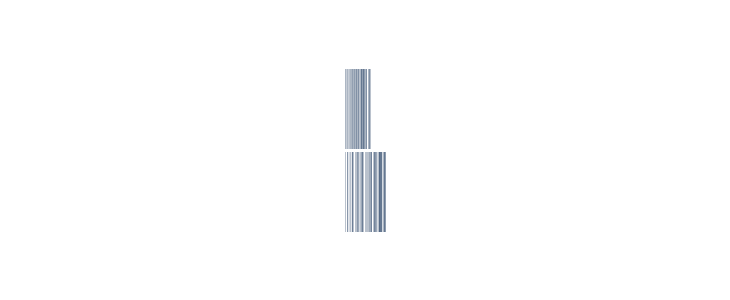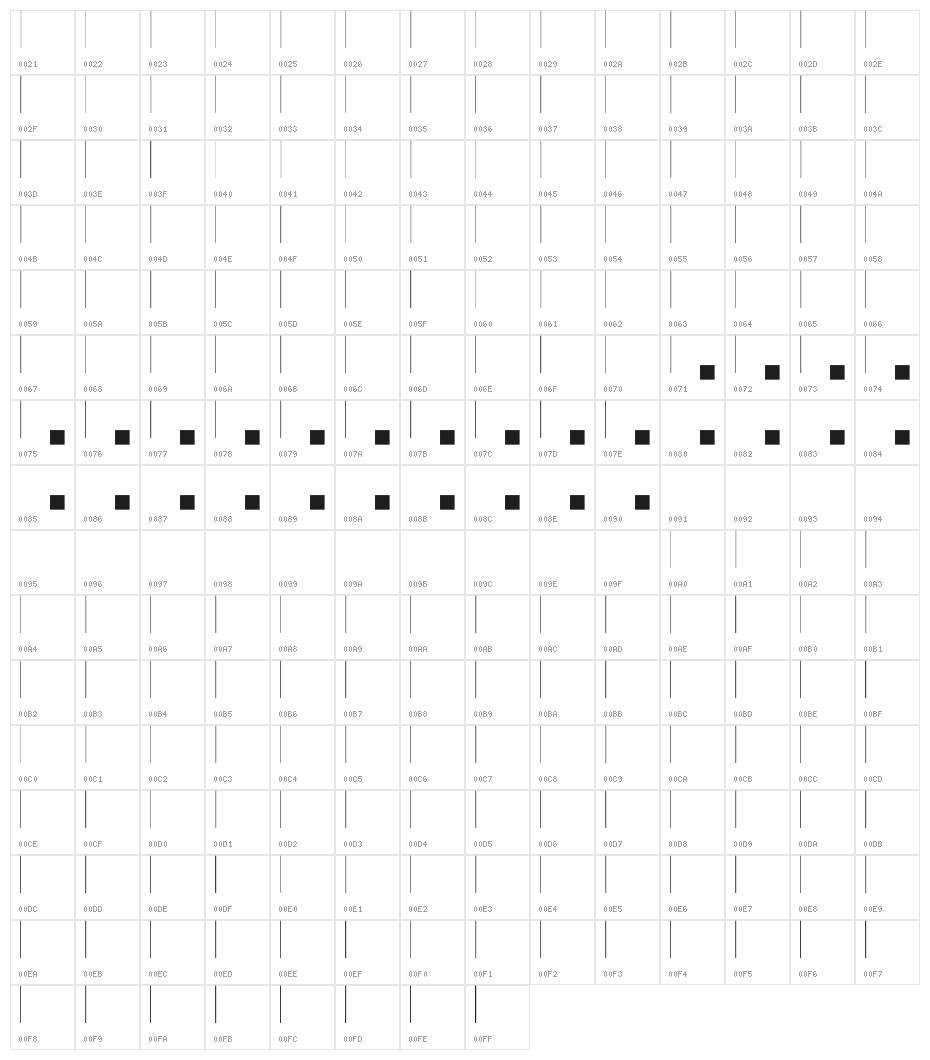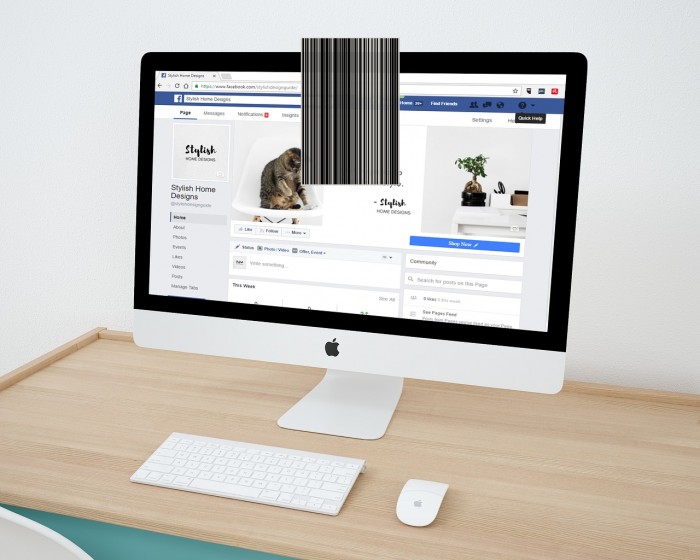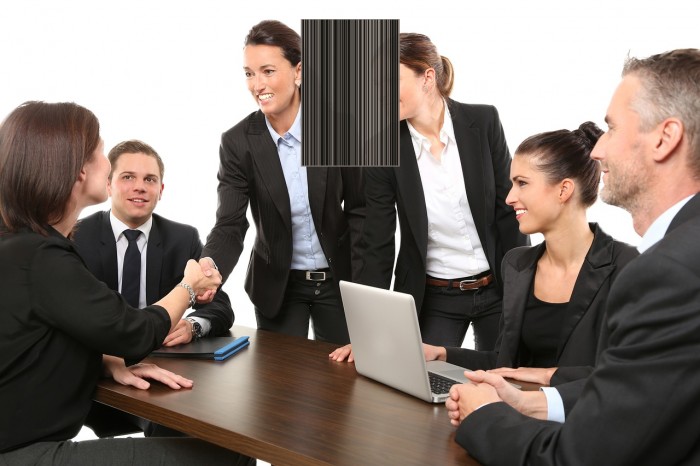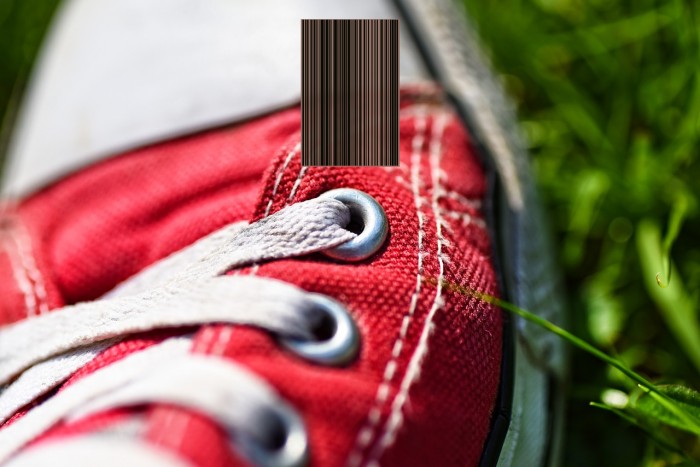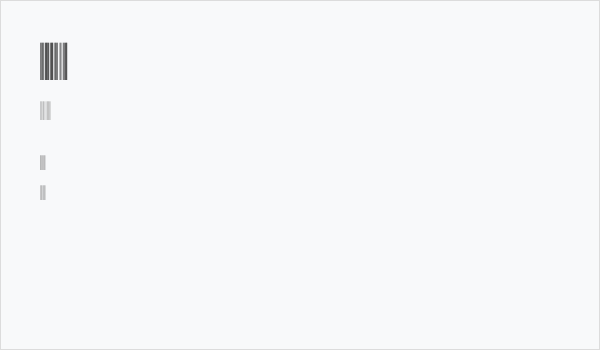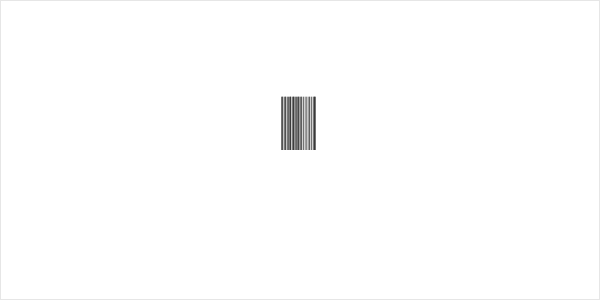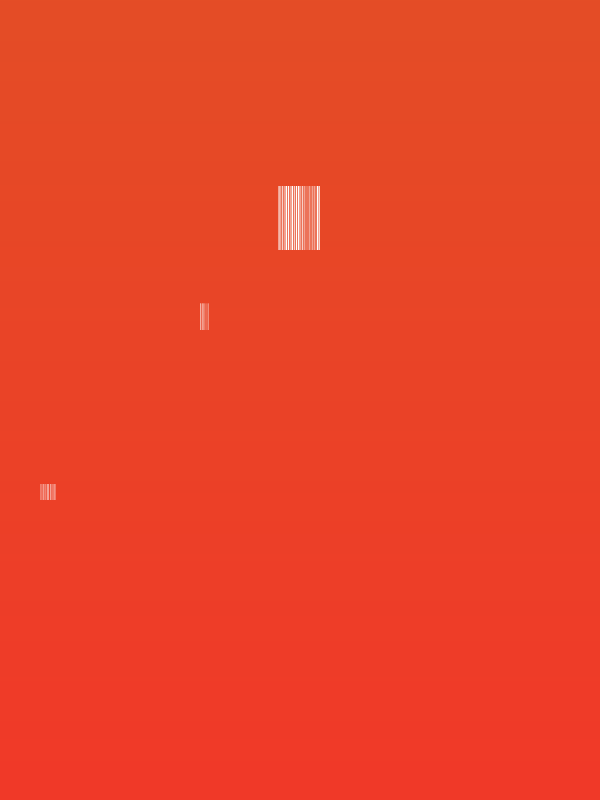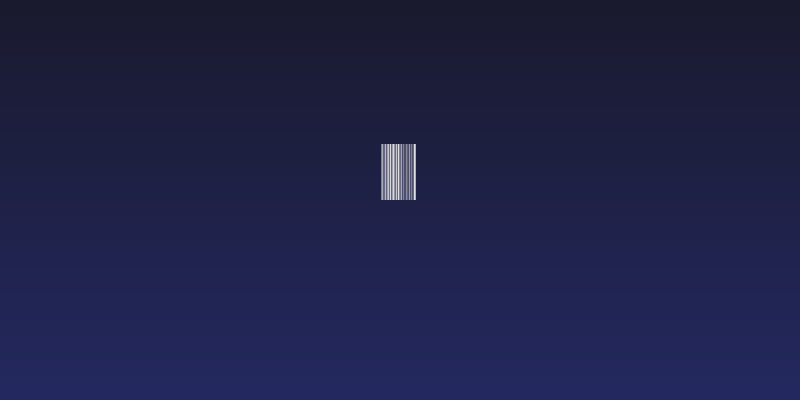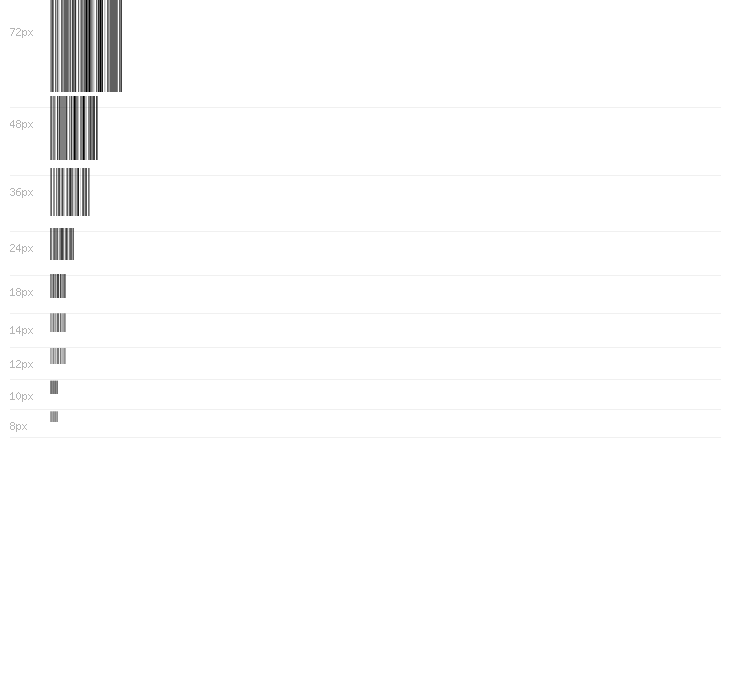
siki_on_kooUltraNarrow Font
siki_on_kooUltraNarrow Description
This font features an extremely narrow and condensed design, with elongated vertical lines that create a striking and modern appearance. The characters are tightly packed, emphasizing height over width, which gives it a unique and distinctive look. The strokes are consistent in thickness, providing a uniform and sleek aesthetic. This style is particularly effective for creating a dramatic visual impact in limited space, making it ideal for specific design needs where space is a constraint.
| Use Case | Logos, Headlines |
| Proposed Projects | Ideal for modern art installations, futuristic branding, or any project requiring a space-efficient yet impactful typeface. |